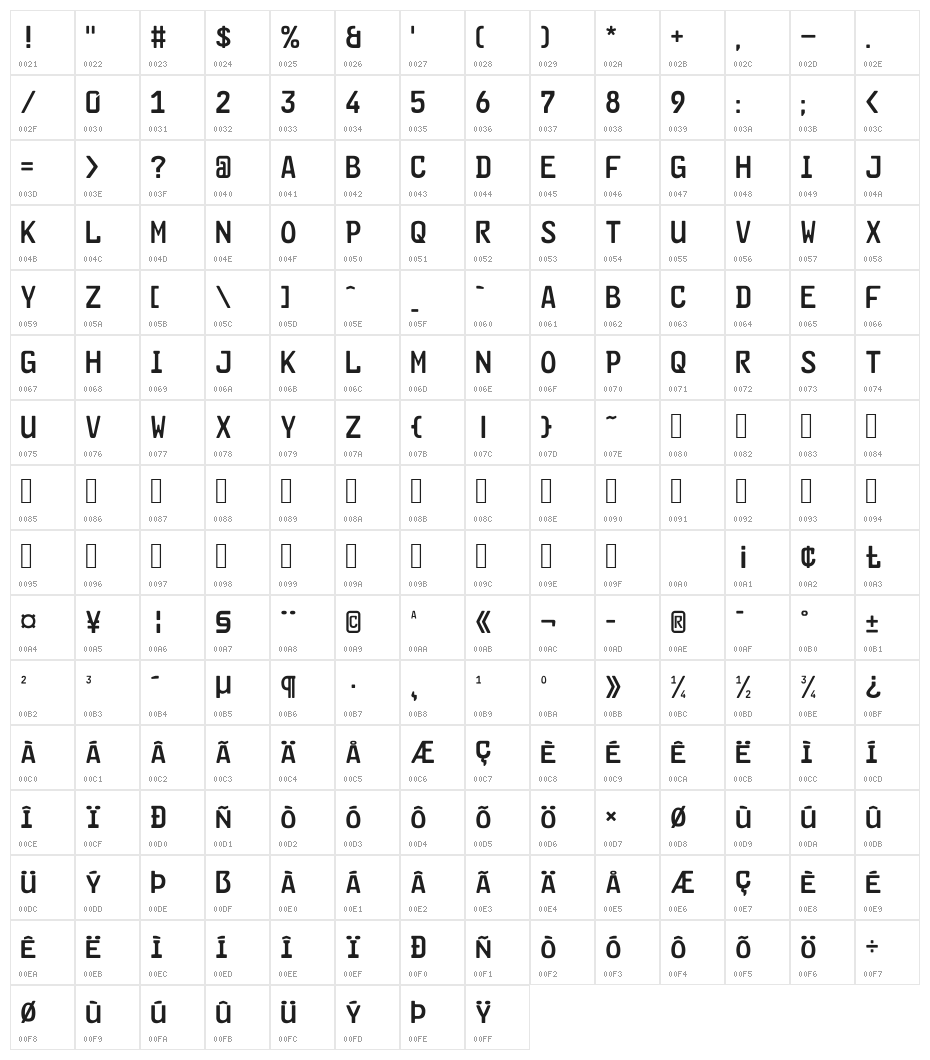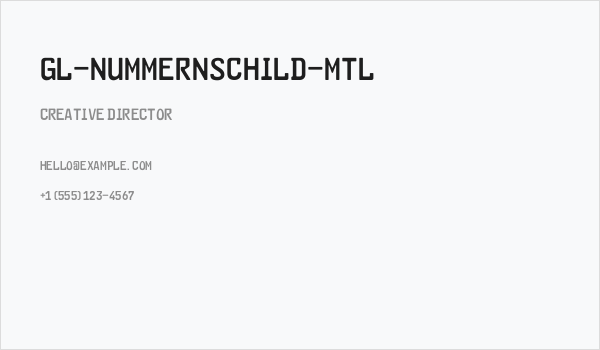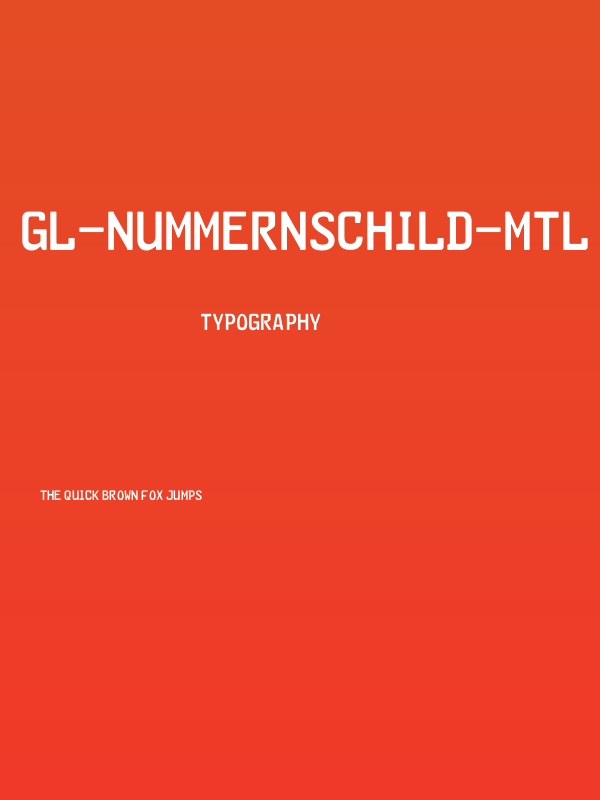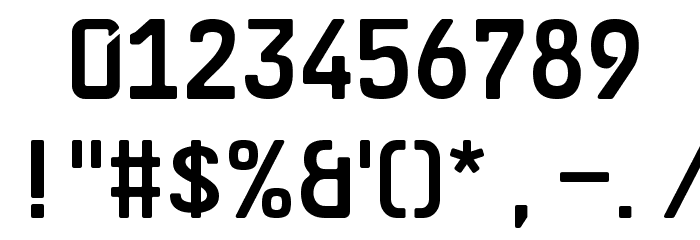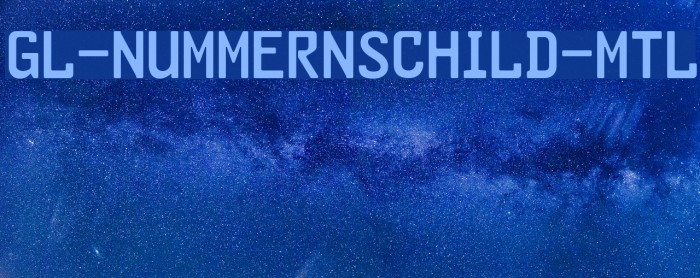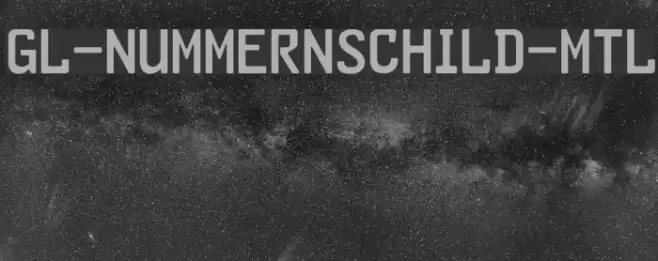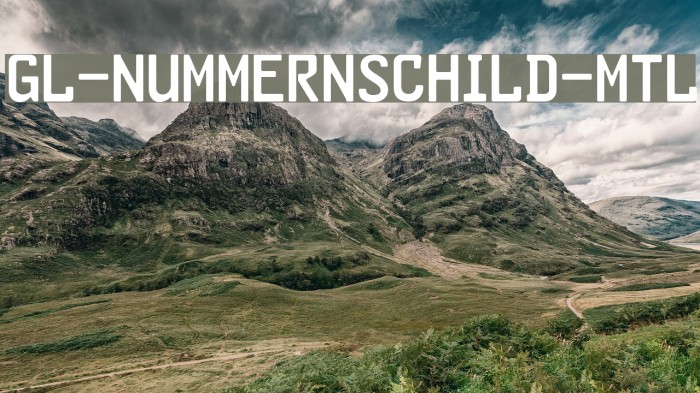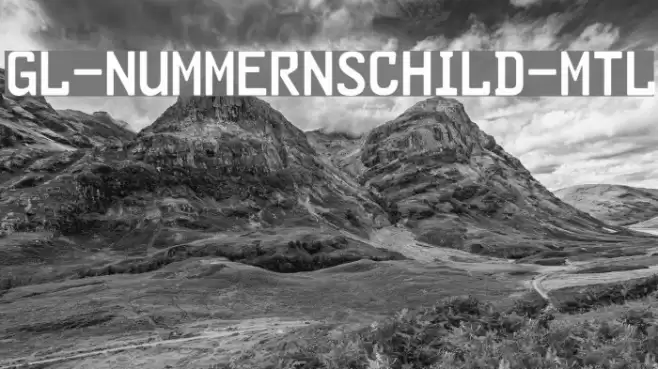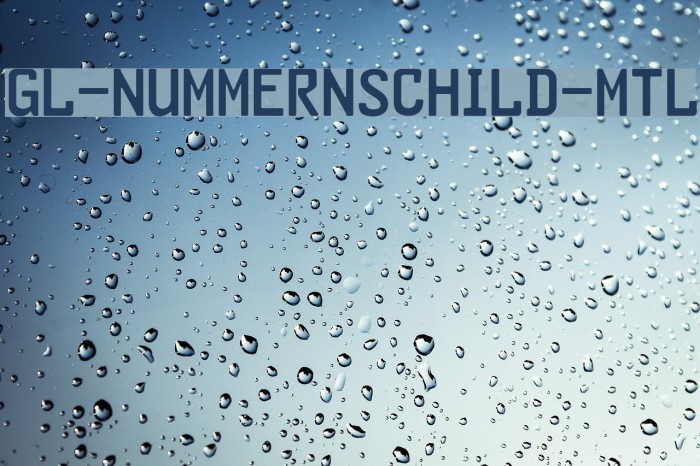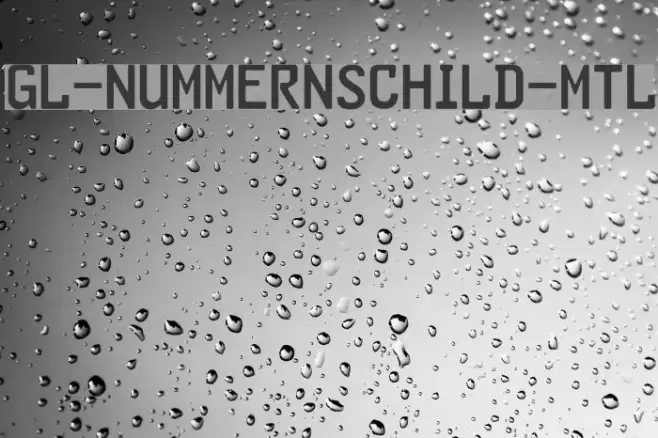
GL-Nummernschild-Mtl Font
GL-Nummernschild-Mtl Description
This font features a bold, geometric sans-serif style with a modern and industrial feel. The characters are uniform in width, contributing to a monospaced appearance, although they are not strictly monospaced. The uppercase letters are slightly condensed, giving a compact and efficient look. The numbers are clear and legible, with a distinctive zero that has a diagonal slash, enhancing readability. The special characters are consistent with the overall design, maintaining the bold and straightforward aesthetic. This font is suitable for contexts where clarity and impact are essential.
| Width | Condensed |
| Use Case | Signage, Logos, Vehicle License Plates |
| Proposed Projects | Ideal for use in signage, vehicle license plates, industrial design, and branding projects requiring a strong, clear typeface. |